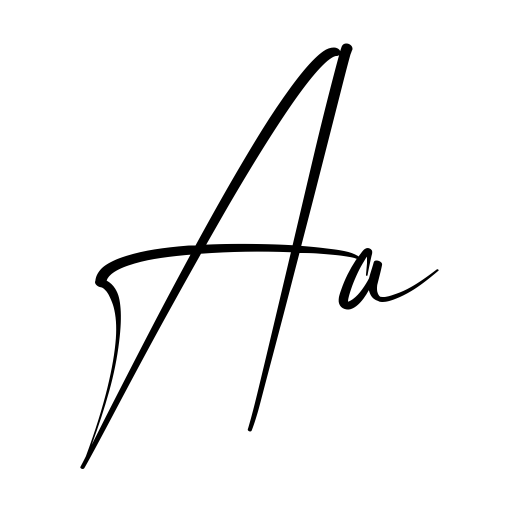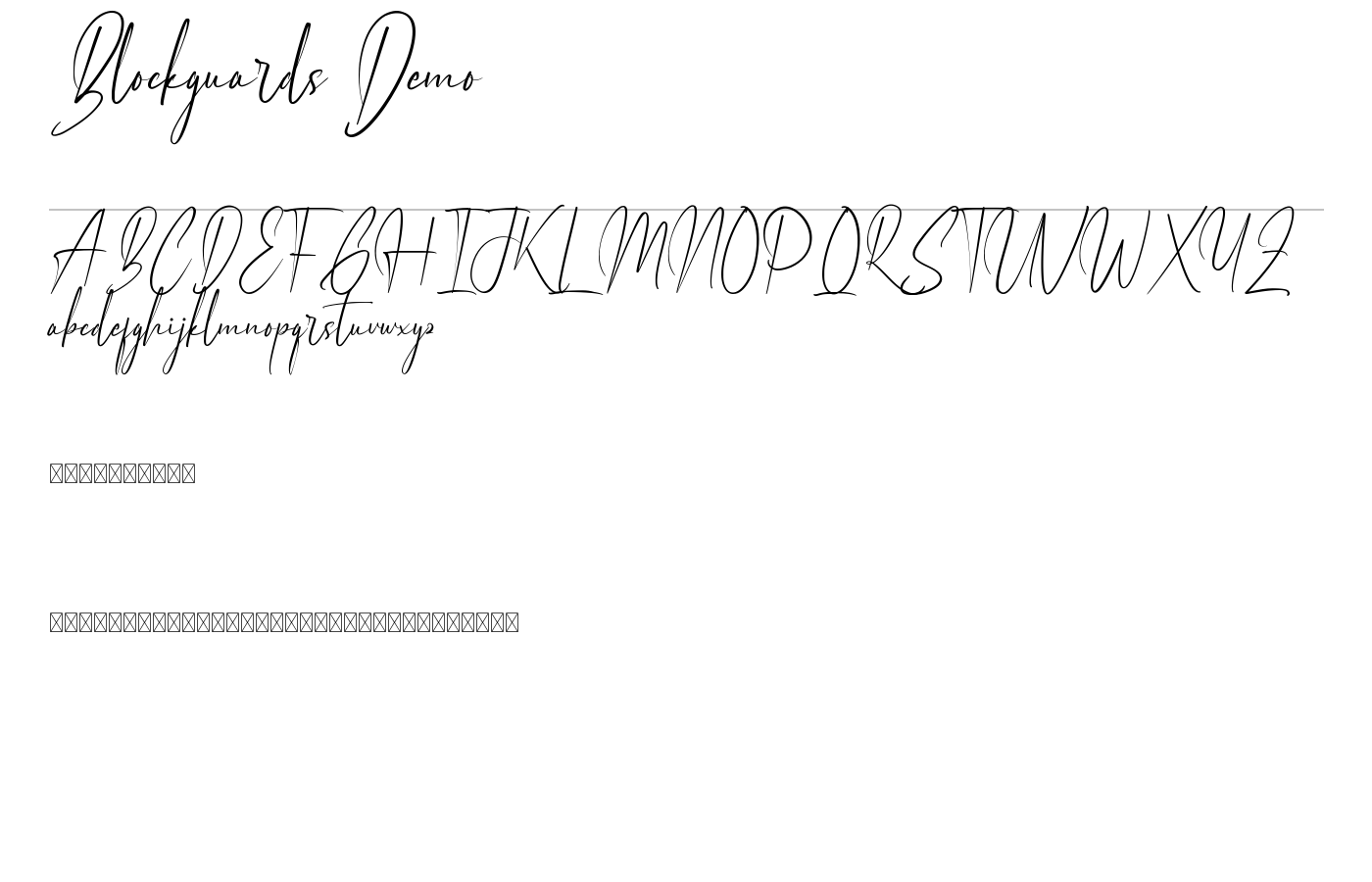
Blockguards Demo is an elegant and delicate script font characterized by its fine, flowing strokes and high contrast between thin and slightly thicker lines. Its tall, narrow letterforms and handwritten style evoke a sophisticated, modern, and personal feel, making it ideal for branding, invitations, and editorial projects where a touch of refined femininity is desired. This font works best in large display settings such as logos and headlines, adding a graceful and artistic flair to any design.
Blockguards Demo Font
About Blockguards Demo Font
| Font family | Blockguards Demo Font |